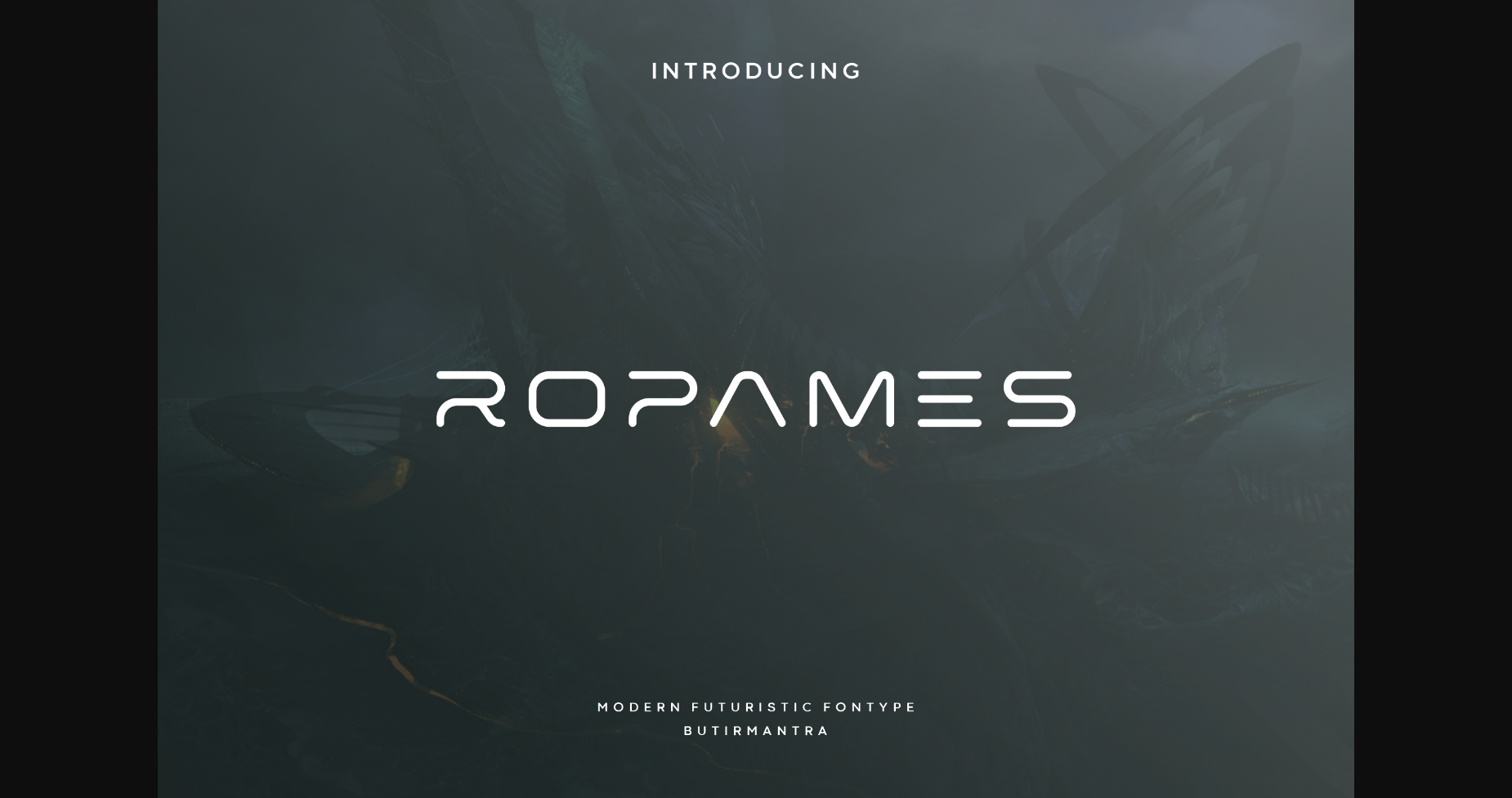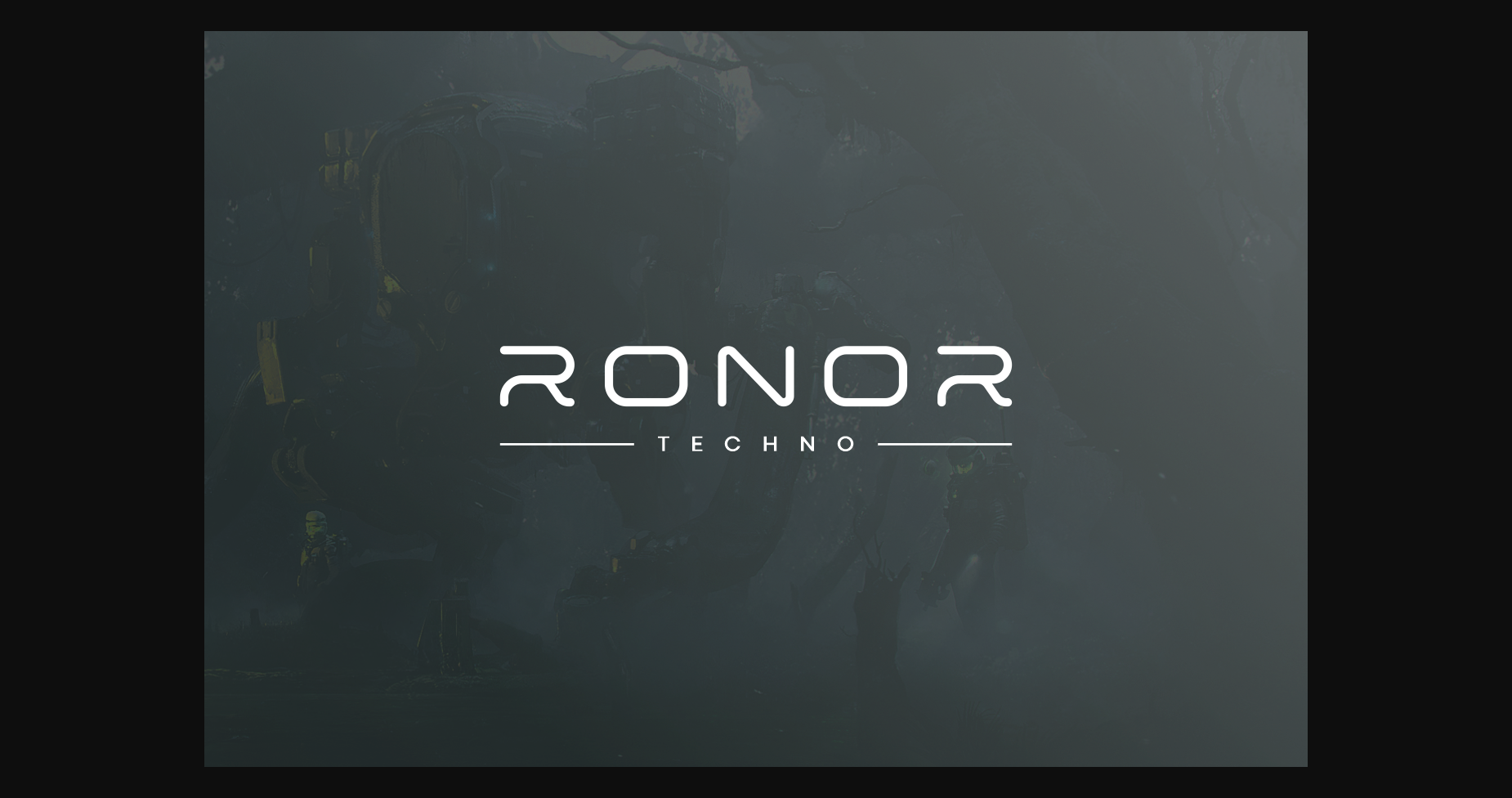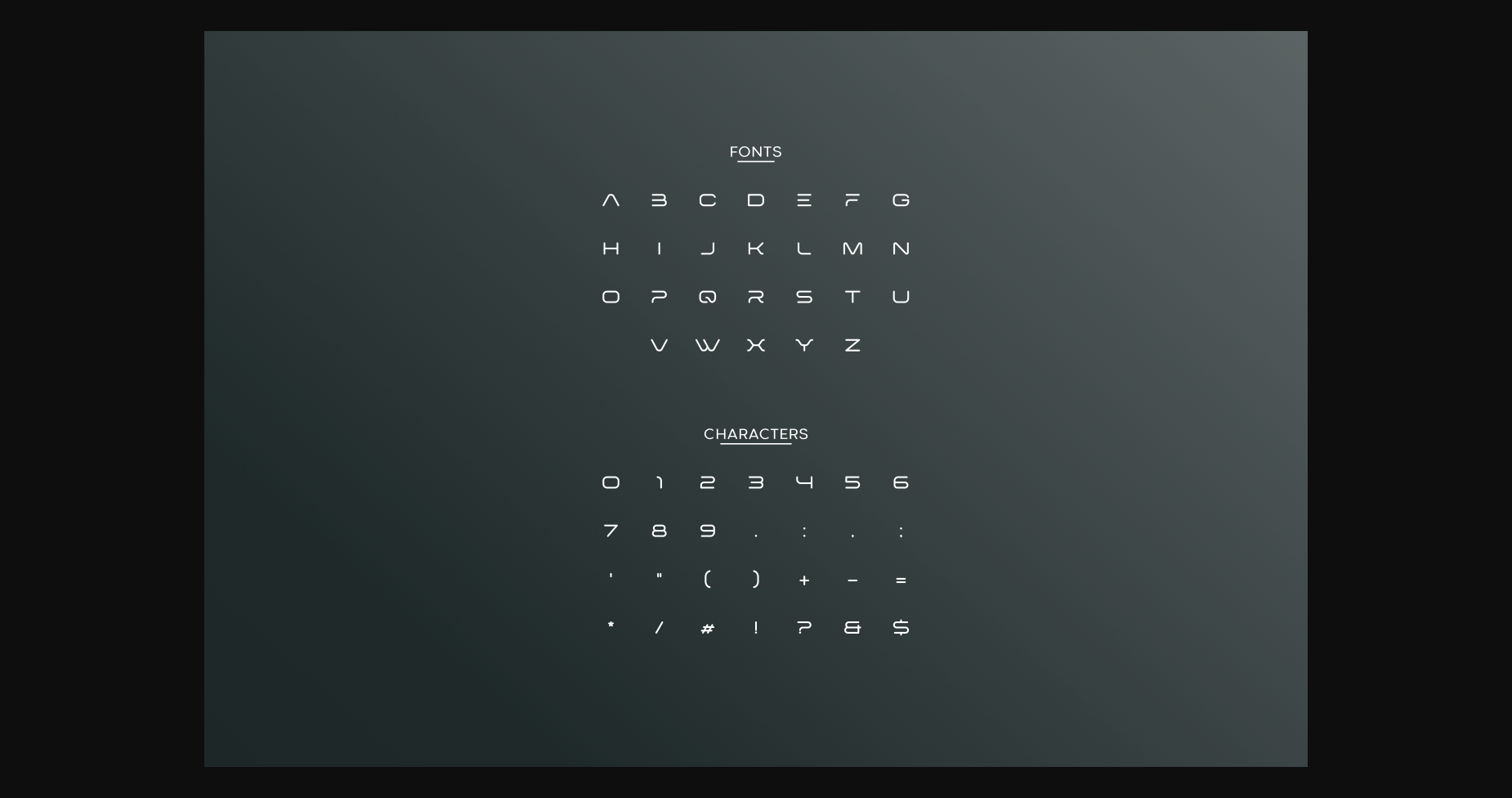
About Ropames Font
Ropames is a modern, elegant, and futuristic sans serif font. This font would be ideal for web design, business cards, or just about anything else that requires a unique touch.